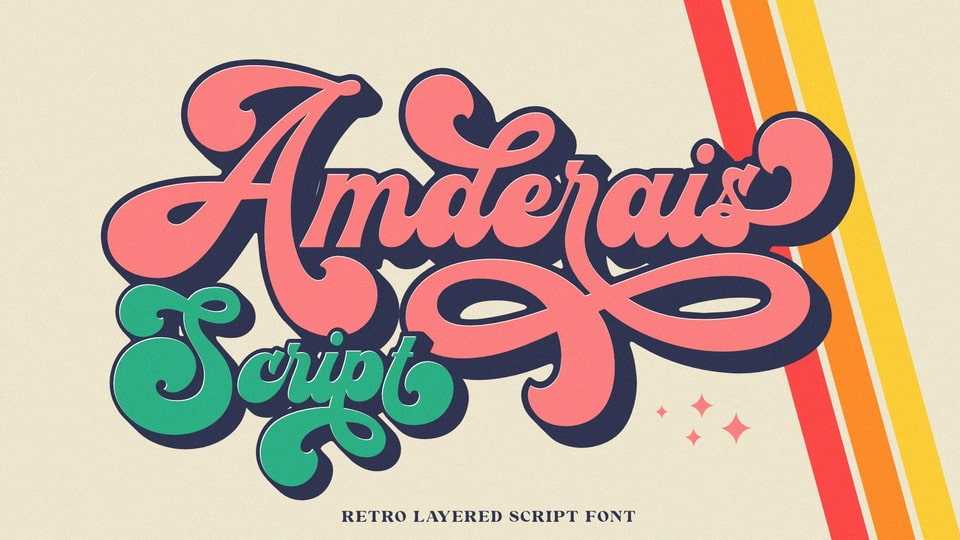
Download Amderais font, a bold script typeface inspired by the famous retro typographic designs of the late 60s to 70s. Amderais font is very suitable for logos, labels, logos, magazines, books, posters, packaging, fashion, make-up, merchandise or advertising purposes.